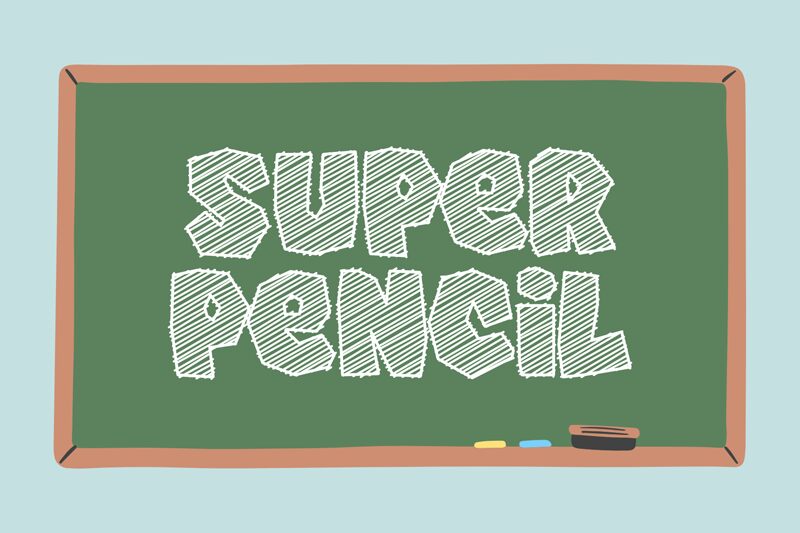
معاينة خط Super Pencil
Super Pencil, a captivating display font crafted by the talented designer fsuarez913, exudes a bold and dynamic presence. Featuring a distinctive hand-drawn aesthetic, this font showcases a striking blend of organic lines and angular flourishes, creating an energetic and expressive visual language. The bold weight and playful character of Super Pencil evoke a sense of youthful vibrancy, making it an ideal choice for attention-grabbing headlines, impactful logo designs, and eye-catching typographic compositions.
Leveraging its versatile nature, Super Pencil can seamlessly transition between various design contexts, from modern branding and packaging to vibrant editorial layouts and dynamic web interfaces. Its bold and distinctive personality lends itself effortlessly to projects that seek to capture a sense of creativity, enthusiasm, and personality, making it a versatile tool for designers and creative professionals.
عرض ونموذج مرئي لخط Super Pencil
خريطة محارف خط Super Pencil